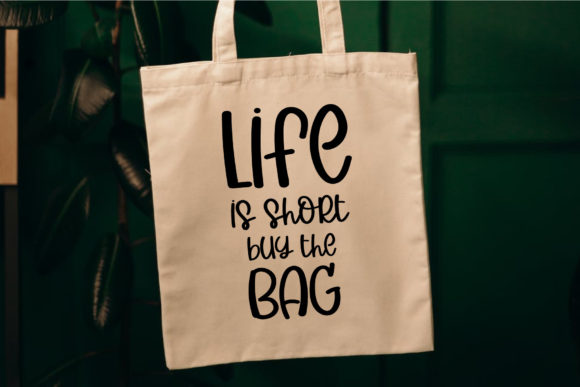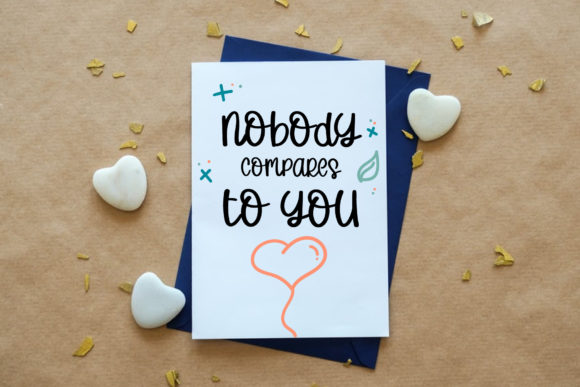
Introduction to Smooth Skin Font
As a designer, there’s nothing quite like the thrill of bringing a creative project to life. You’ve spent hours brainstorming, sketching, and perfecting every detail, and finally, it’s time to choose the perfect font to tie everything together. That’s where the Smooth Skin Font comes in – a beautiful, high-quality handwritten font that’s sure to elevate your design to the next level.
With its unique blend of coziness and solemnity, the Smooth Skin Font is the perfect choice for designers looking to add a touch of sophistication to their projects. Whether you’re working on luxury branding, wedding invitations, or apparel designs, this font is sure to make a lasting impression. And the best part? It’s available for free download, making it a valuable resource for designers of all levels.
So why is the Smooth Skin Font so valuable for designers? For one, its transparent background makes it easy to pair with any design element, while its high-quality design ensures that it will look great on any platform. With its free download option, you can experiment with this font on your next creative project and see the impact it can have for yourself.
Key Features of Smooth Skin Font
- High-quality design resource ideal for creative projects, including logos, branding, and graphics.
- Unique characteristics include its sleek and modern aesthetic, making it perfect for contemporary design projects.
Honest Review: Smooth Skin Font
I recently had the opportunity to work with the Smooth Skin Font, and I must say it’s been a game-changer for my design projects. This high-quality font is a fantastic addition to any design resource, offering a unique touch to creative projects.
What works well: ✨ The font’s modern design and sleek aesthetic make it perfect for contemporary projects. The transparent background feature allows for seamless integration into various design elements, giving you the flexibility to experiment with different layouts.
Some of the key features that I appreciate include:
- Easy-to-read characters, making it perfect for body text or headlines
However, I do have a few reservations: ⚠️ The font may not be suitable for projects requiring extreme precision or complex typography. Additionally, the font’s modern style may not appeal to those seeking a more traditional or classic look.
Overall, I’m thoroughly impressed with the Smooth Skin Font. Its unique design and flexibility make it a valuable asset for any design project. If you’re looking for a high-quality font to elevate your creative work, I highly recommend giving it a try.
How to Use Smooth Skin Font
The Smooth Skin Font is a high-quality design resource ideal for creative projects that require a sophisticated and elegant look. This font features a transparent background, making it easy to overlay on any image or background.
Tips for Getting the Most Out of Smooth Skin Font
Experiment with different font sizes and colors to achieve the desired look. You can also combine the Smooth Skin Font with other design elements to create a unique and eye-catching design.
The Smooth Skin Font is ideal for use in wedding invitations, luxury branding, and high-end marketing materials. It’s also great for creating elegant and sophisticated graphics for social media and websites.